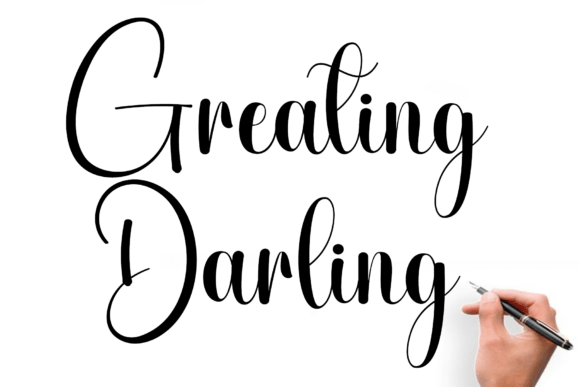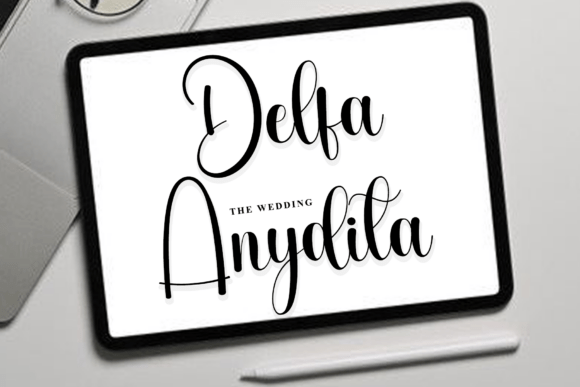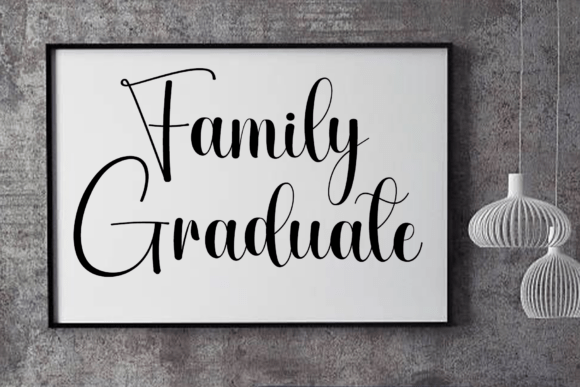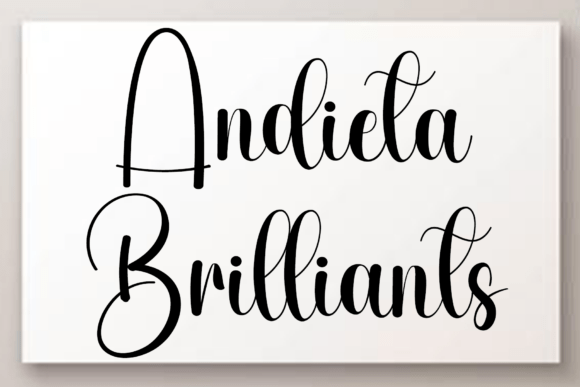
The Elusive Perfect Font: My Love Affair with Daddy Highclass
I’ll never forget the design project that led me to Daddy Highclass. I was working on a branding campaign for a boutique bakery, and I was determined to find the perfect font to capture their artisanal spirit. I scoured the internet, tried out countless fonts, but nothing seemed quite right. That was until I stumbled upon Daddy Highclass. Its elegant, looping ascenders and warm, organic aesthetic won me over instantly. It was like the font was made for the bakery’s handcrafted pastries and small-batch jams.
What I Love About Daddy Highclass
- ✨ Elegant and sophisticated, perfect for high-end branding
- 💫 Unique, looping ascenders add a touch of artisanal flair
- 🎨 Versatile and adaptable to various design contexts
While Daddy Highclass is an exceptional font, it’s not without its quirks. For instance:
- 🤔 Some characters, like the lowercase “k” and “q”, can be a bit tricky to read at very small sizes
- ⚠️ The font’s script nature means it may not be the best choice for very long blocks of text
- Experiment with OpenType features, like swashes and stylistic alternates, to add flair to your text
The Story Behind Daddy Highclass
Daddy Highclass was designed with the intention of capturing the essence of artisanal craftsmanship. Its creator aimed to craft a font that would evoke the feeling of handmade products and bespoke services. The result is a font that exudes warmth, elegance, and a sense of customized care.
Q: What makes Daddy Highclass suitable for artisanal branding?
A: Daddy Highclass’s unique, looping ascenders and warm aesthetic evoke a sense of handmade craftsmanship, making it perfect for artisanal food branding, boutique product packaging, and upscale lifestyle marketing.
Q: Can I use Daddy Highclass for body text?
A: While Daddy Highclass is highly legible, its script nature makes it more suitable for headlines, titles, and short paragraphs. For longer blocks of text, a serif or sans-serif font might be more readable.
Q: Does Daddy Highclass support OpenType features?
A: Yes, Daddy Highclass supports OpenType features, including swashes, stylistic alternates, and glyphs. These features allow you to add flair and customization to your text.
Q: Is Daddy Highclass suitable for digital use?
A: Absolutely! Daddy Highclass is designed to be versatile and adaptable to various design contexts, including digital applications like websites, social media, and email marketing.